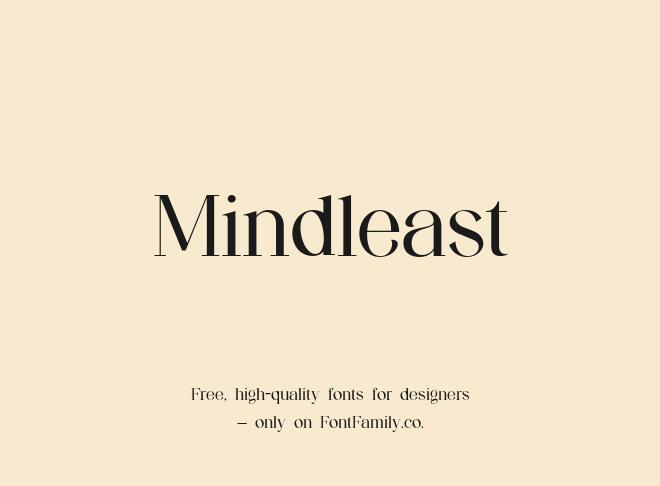
Mindleast Font
Mindleast Font is a modern, minimal, and elegant typeface. Created by Mindleast Design Studio, this font showcases a sleek, contemporary design, making it an excellent choice for branding, logo design, and headline text. Its clean lines and minimalistic aesthetic set it apart from other fonts, giving your designs a unique and sophisticated edge. Despite its simplicity, Mindleast Font doesn't compromise on style or versatility. Its elegant letterforms can adapt to a wide range of design contexts, from minimalist web design to bold print advertisements. With its modern design and elegant charm, Mindleast Font is a perfect addition to any designer's toolkit.